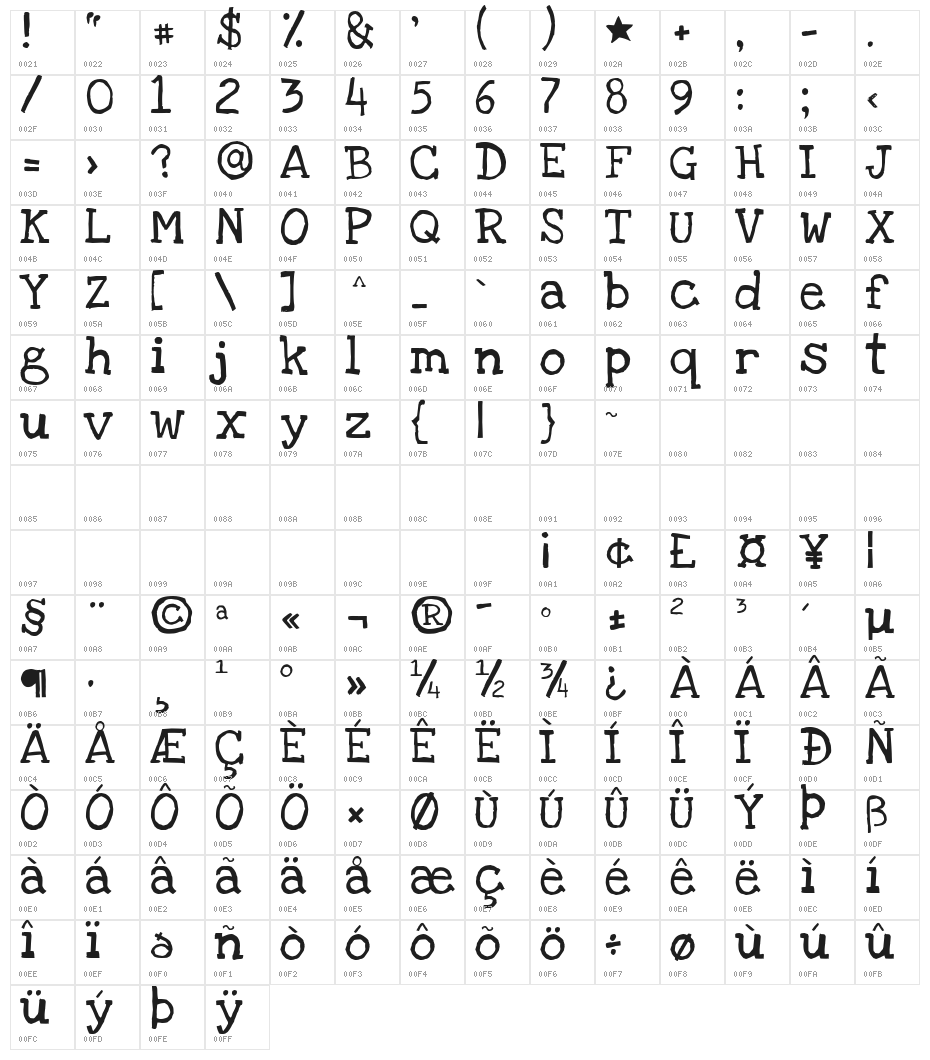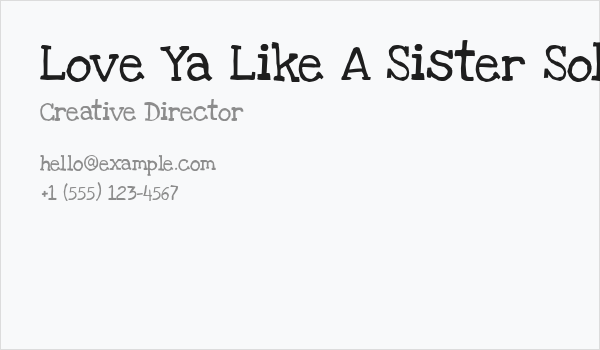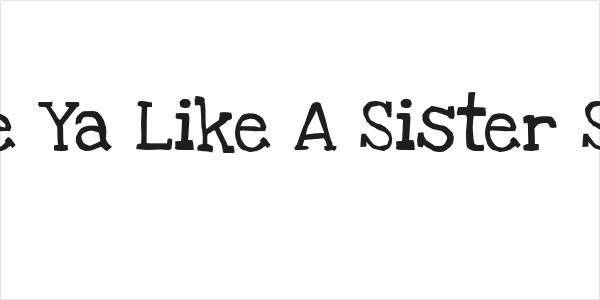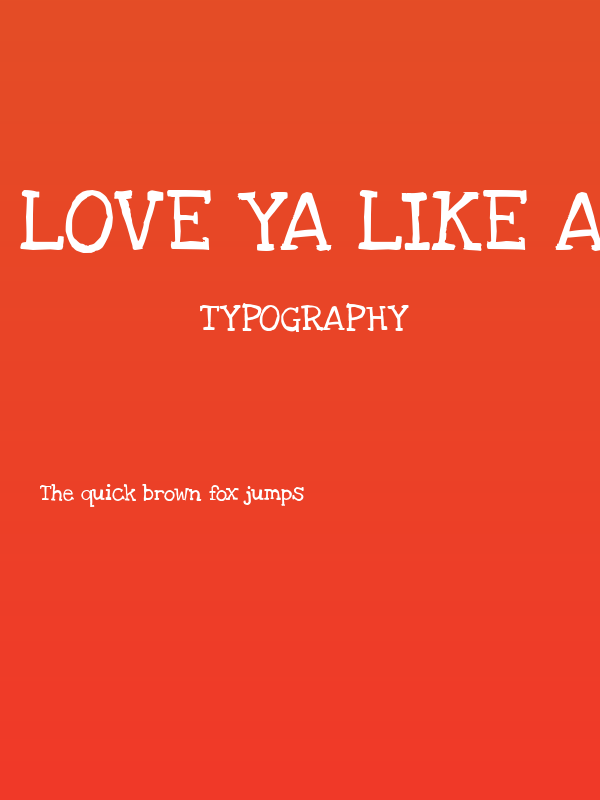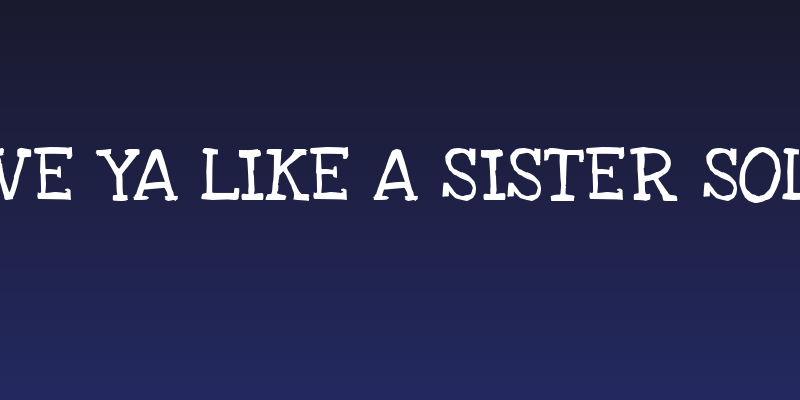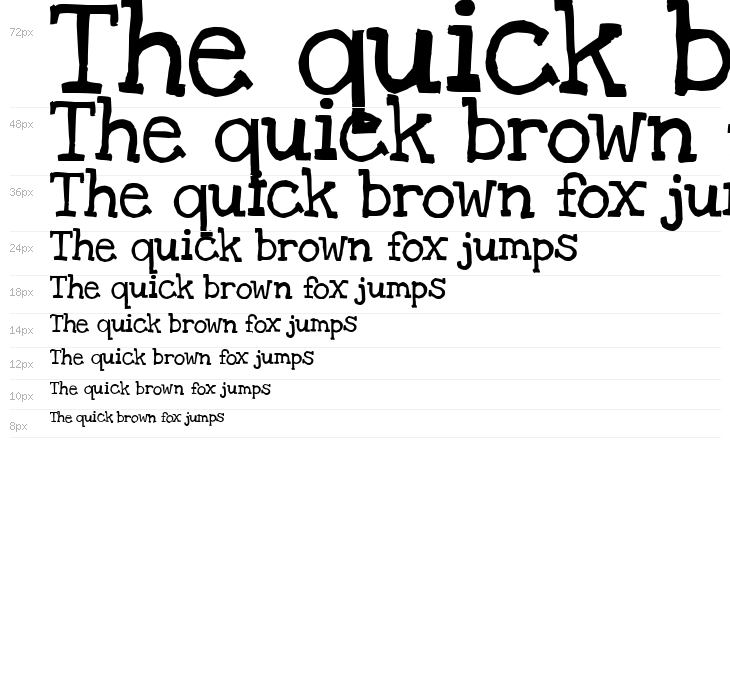
Love Ya Like A Sister Solid Font
Love Ya Like A Sister Solid Description
This font exudes a playful and casual vibe, characterized by its hand-drawn appearance and slightly irregular letterforms. The strokes are bold and uneven, giving it a whimsical and friendly feel. The uppercase and lowercase letters maintain a consistent style, with rounded edges and a slight tilt, adding to its informal charm. The numerals and special characters follow the same design principles, ensuring a cohesive look across all glyphs. This font is perfect for projects that require a touch of personality and warmth.
| Proposed Projects | Ideal for greeting cards, children's books, playful branding, and casual invitations. |